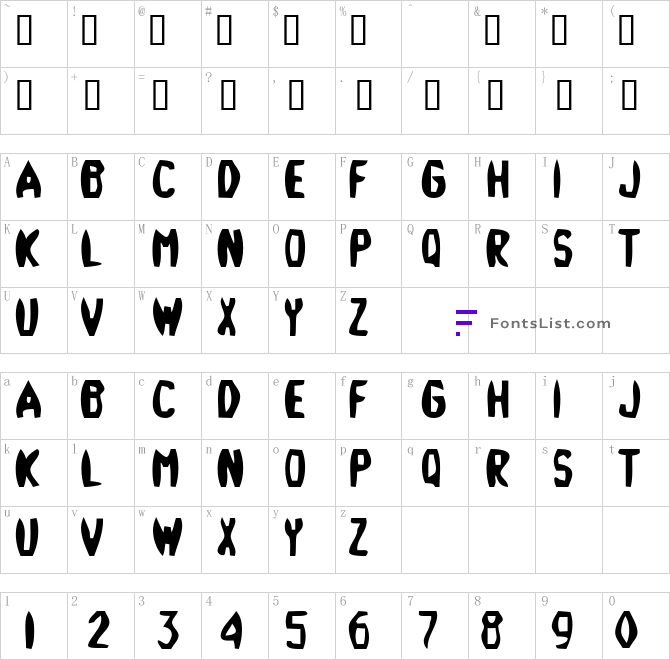
- Font Name:Damage™ Bludgeon
Damage-Bludgeon.ttf is a very beautiful artistic font, Damage-Bludgeon.ttf is widely used in the design and printing of various books and pictures,Damage-Bludgeon.ttf has a strong visual impact,Damage-Bludgeon.ttf is a commonly used font in newspapers, magazines and books, and is used in posters, e-commerce Poster design, store design, logo design, font design and other fields.Damage-Bludgeon.